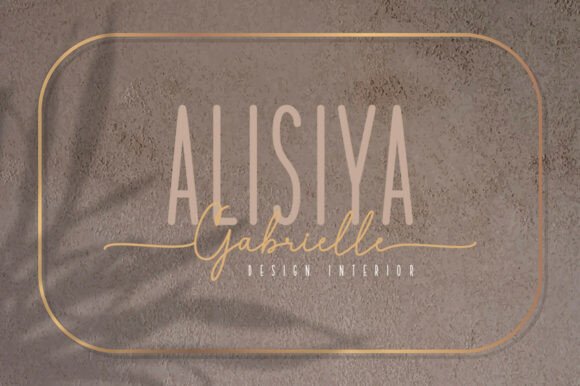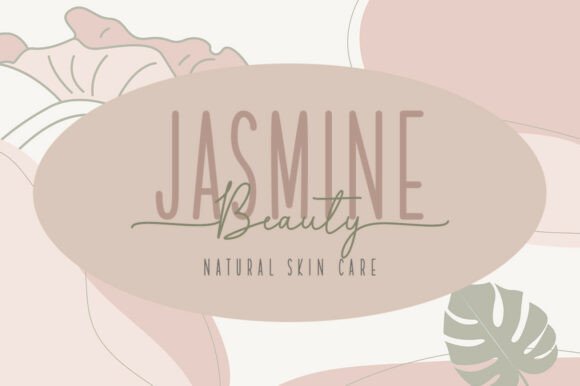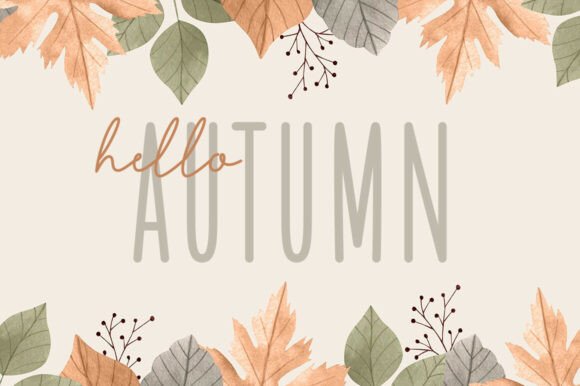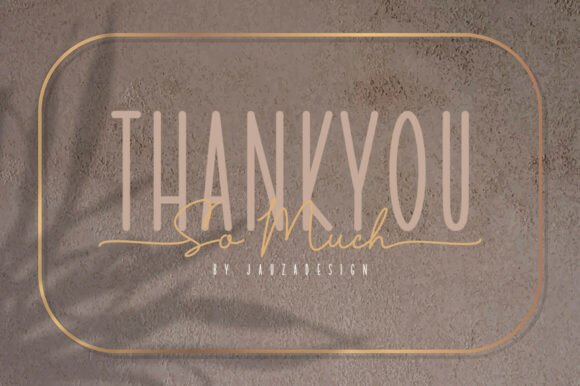
Introduction to Beautifulgarden Font
Category: Handwritten Font Duo Substyles: Modern Script + Tall Sans Serif Best Use: Branding, invitations, editorial, packaging, wedding design, boutique products.
Beautiful Garden is a graceful handwritten font duo that effortlessly combines elegance with warmth Featuring a tall, clean all-caps sans serif paired with a flowing, modern script, this duo creates a stunning balance between structured clarity and organic charm.